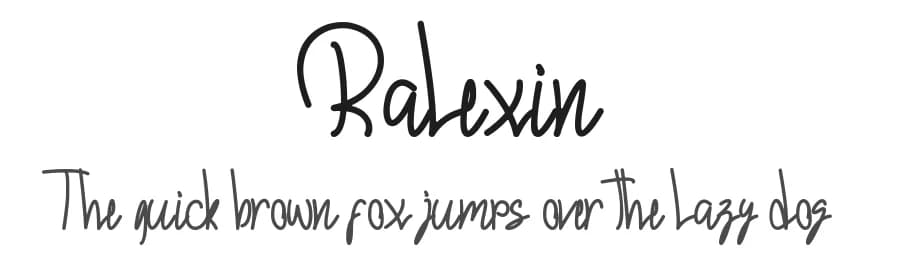
About Ralexin Font
Ralexin is a stylish handwritten signature font created by Mifiq Studio.With its smooth flow and elegant touch, Ralexin is perfect for logos, branding, wedding invitations, posters, product packaging, and social media content. It brings a natural handwritten feel to any personal design project.
Ralexin Font is a script font that shines as a display or heading face. Pair it with a clean sans-serif or serif font for body text β the contrast creates a clear hierarchy while the two styles stay balanced and easy to read.
Ralexin Font